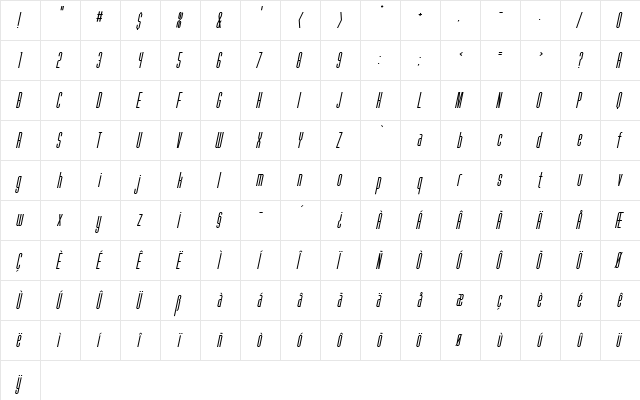
Fanatique Oblique
Design Context for Fanatique Typeface
Fanatique offers clean, dependable letterforms without strong stylistic allegiance, making it a practical choice for designers who need flexibility. The dynamic lean of this cut emphasises speed and emphasis in any layout.
Pro Tip: Use Fanatique for emphasis, pull quotes, and subheadings where its slanted energy can add rhythm to the layout.